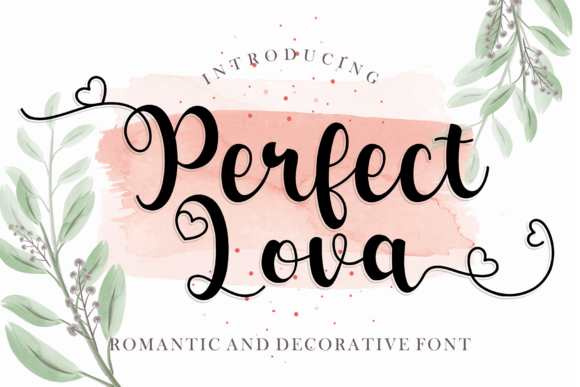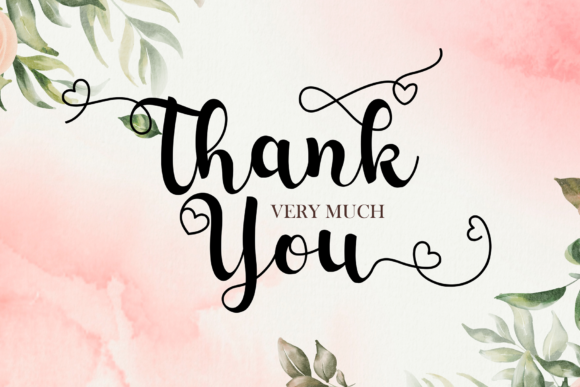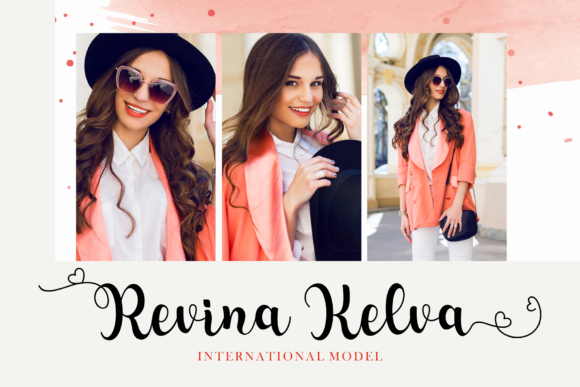
About Perfect Lova Font
Perfect Lova is a delicate, elegant and flowing handwritten font. It has beautiful and well balanced characters and as a result, it matches a wide pool of designs. Perfect Lova features a varying baseline, smooth lines, gorgeous glyphs and stunning alternates. Add it to your most creative ideas and notice how it makes them come alive!